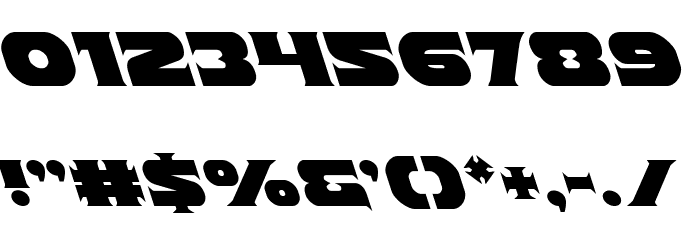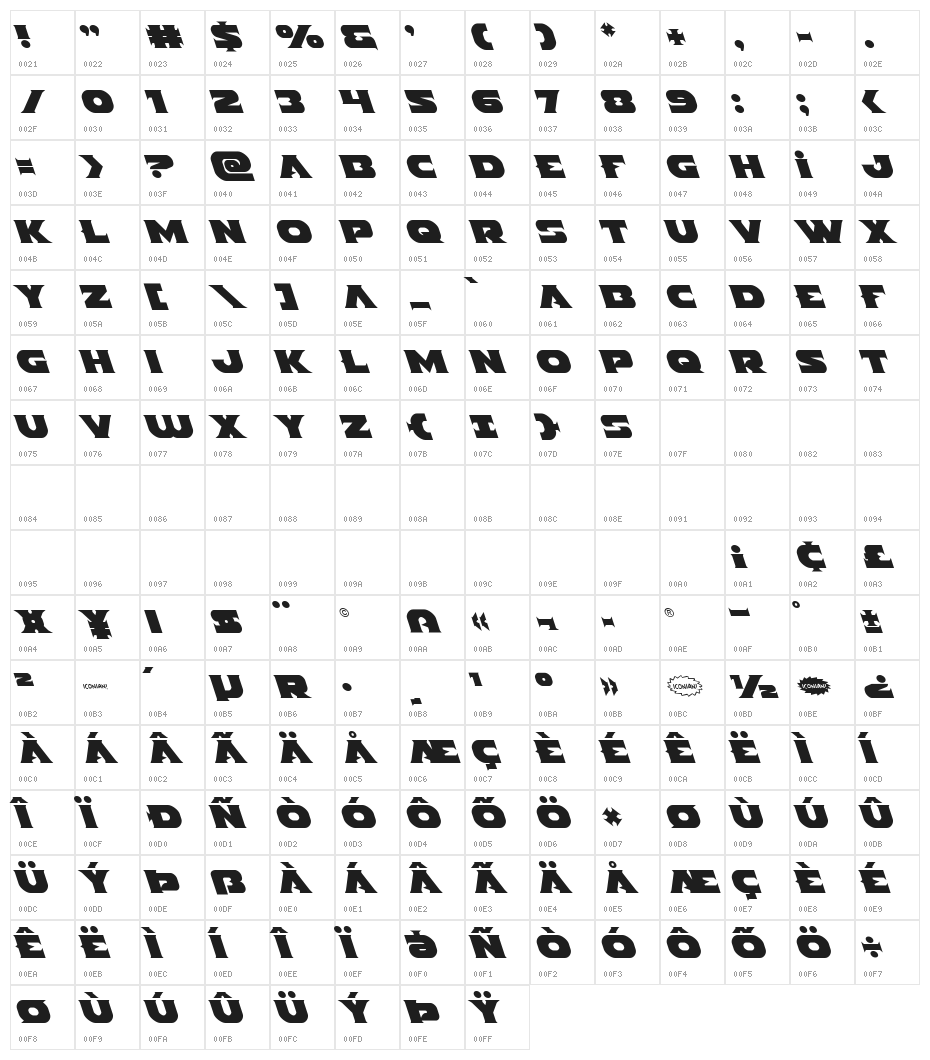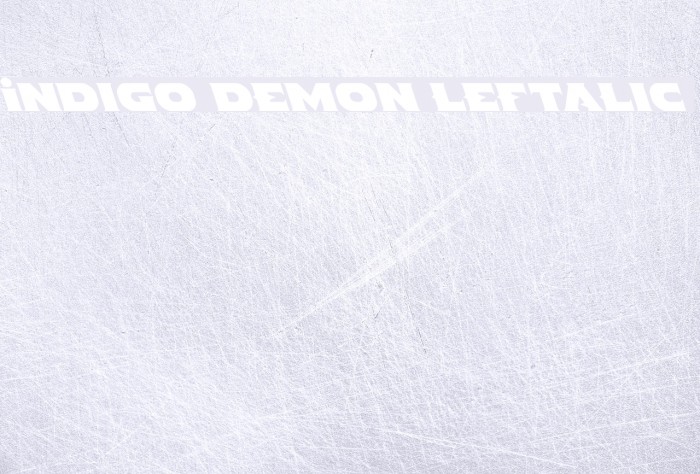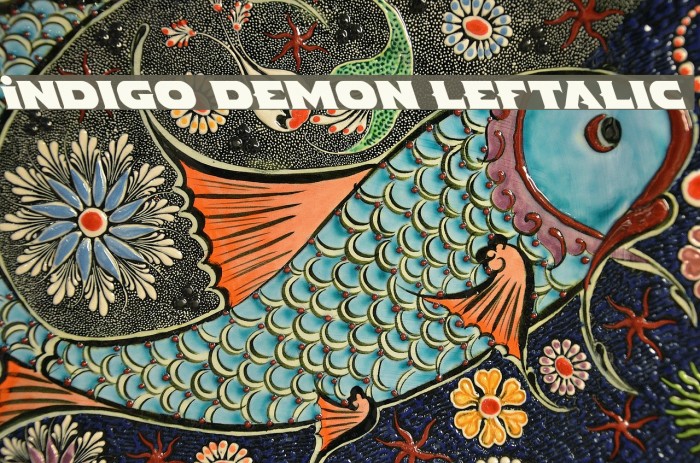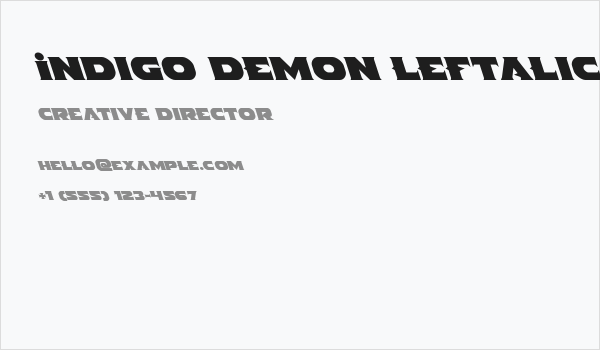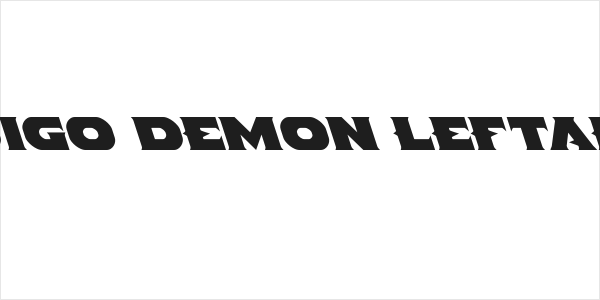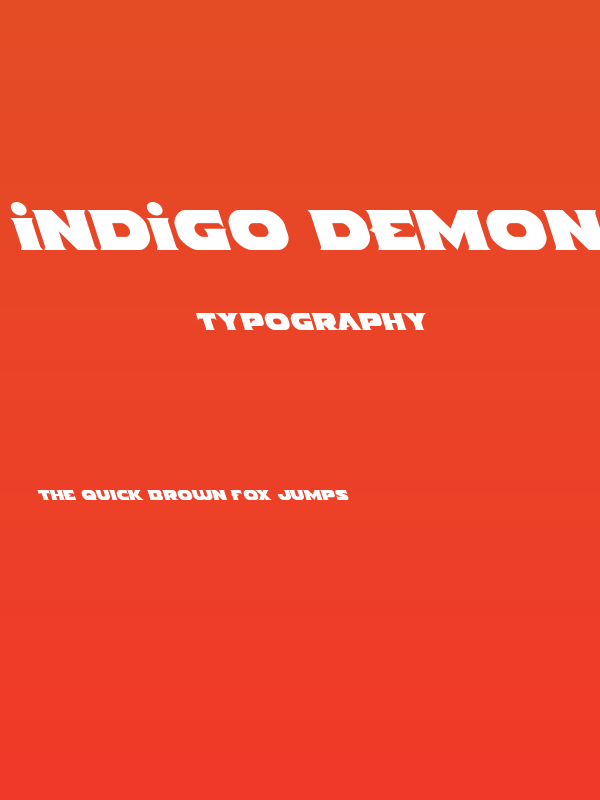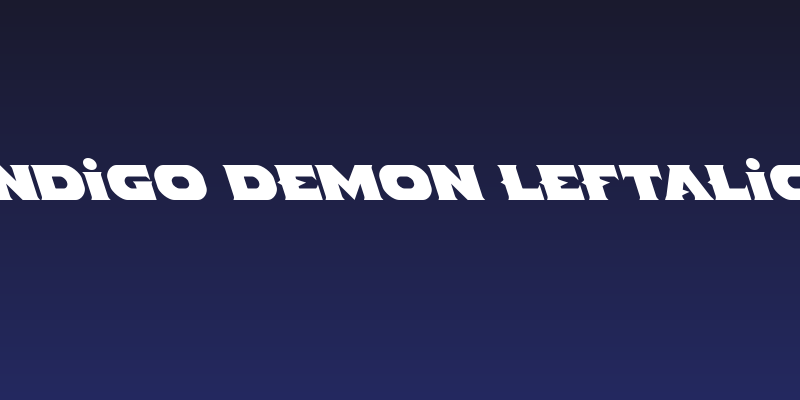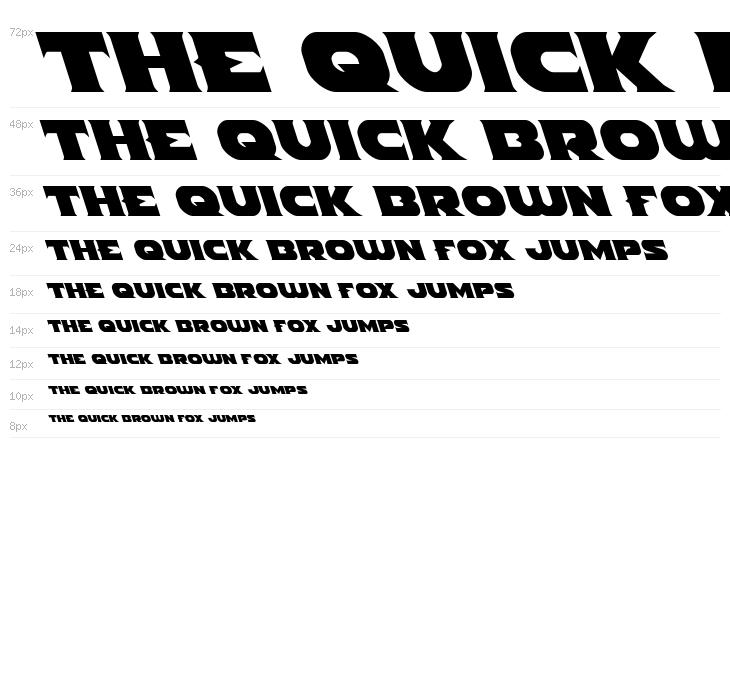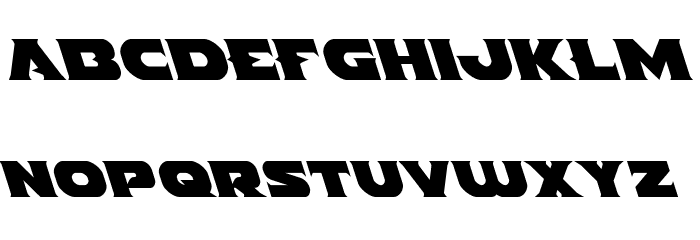
Indigo Demon Leftalic Font
Indigo Demon Leftalic Description
This font features a bold and dynamic style with sharp angles and a futuristic aesthetic. The characters are designed with a distinct slant, giving them a sense of motion and energy. The uppercase and lowercase letters maintain a consistent weight, creating a cohesive look across the alphabet. The numbers and special characters follow the same design principles, ensuring uniformity. The font's unique cut-out sections and geometric shapes add a modern and edgy feel, making it stand out in any design project.
| Proposed Projects | Ideal for sci-fi themed designs, video game titles, posters, and branding that requires a modern and edgy look. |